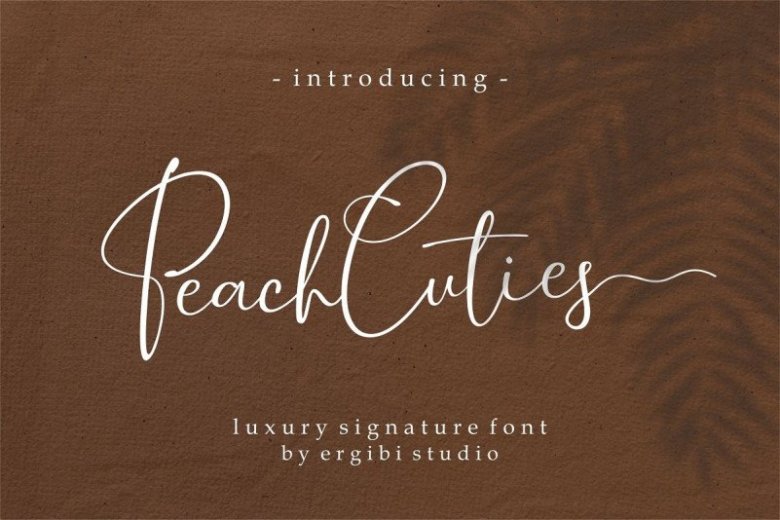
Peach Cuties Signature Font
Peach Cuties Font is a beautiful & classy signature font presentation from Ergibi Studio. This font includes uppercase, lowercase letters, numbers, punctuation, symbols, binders and multilingual support.
Peach Cuties is perfect for branding, photography, invitations, quotes, watermarks, advertisements, product designs, social media posts, stationery, labels, and more!